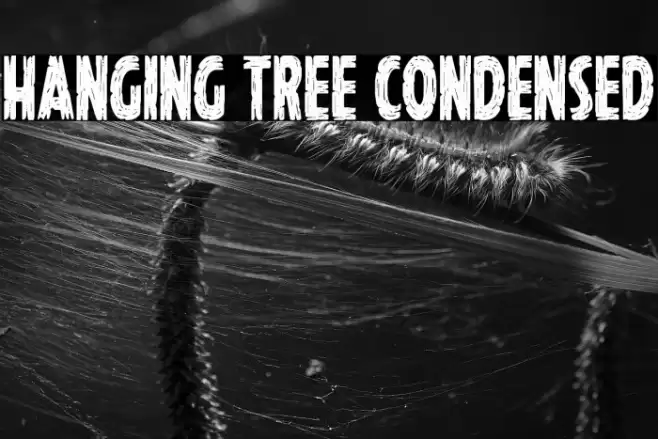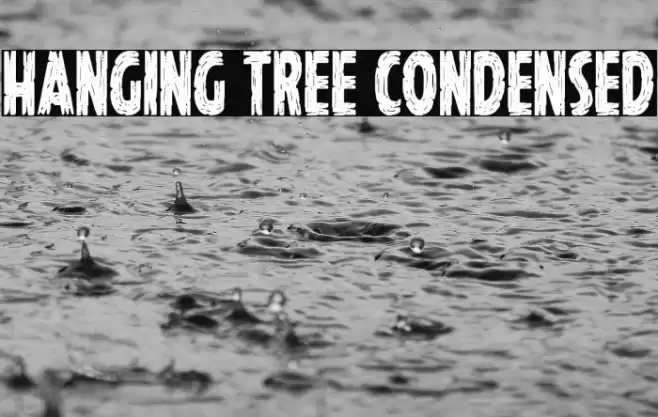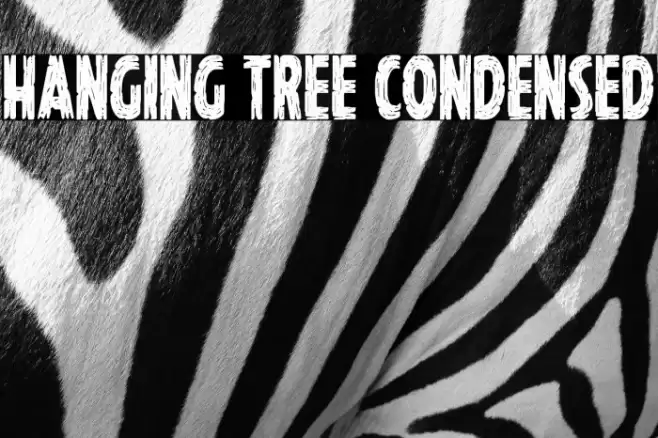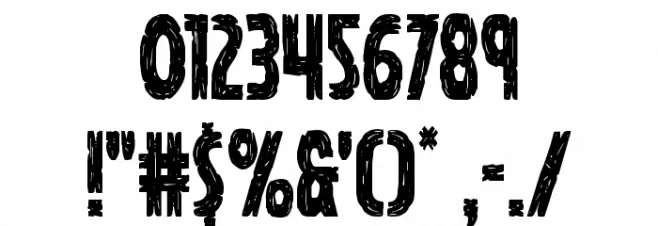
Hanging Tree Condensed Font
Hanging Tree Condensed Description
This font features a distressed, textured appearance that gives it a rugged and edgy look. The characters are bold and condensed, with a hand-drawn style that adds a sense of rawness and authenticity. The uneven strokes and rough edges create a dynamic and energetic feel, making it stand out in any design. The uppercase and lowercase letters maintain a consistent style, while the numbers and special characters complement the overall aesthetic. This font is perfect for projects that require a bold statement or a grunge-inspired theme.
A bold, distressed, and condensed font with a rugged, hand-drawn style from Uncategorized fonts.
- Proposed Projects: Ideal for posters, album covers, branding for edgy products, or any design needing a bold, grunge-inspired look.